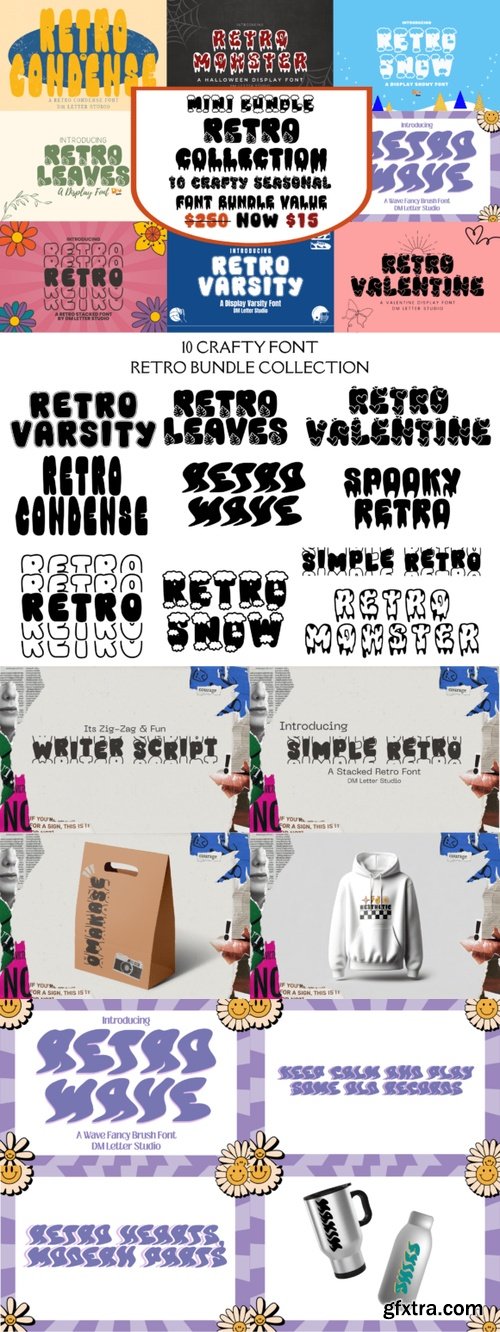
Retro Collection Font
- Explore the realm of artistry with the Mini Retro Font Collection – a meticulous compilation of 10 vibrant retro display fonts, each echoing a different season’s spirit or playfulness. Engaging in a Halloween commemoration, creating a love-filled Valentine’s Day card, conjuring up a winter canopy-themed poster or unleashing your passion with a summery design, this collection embraces all! Each font in the assortment radiates a distinct personality, encompassing everything from effervescent vintage scripts, eerie alphabets to athletic varsity styles. It’s the ideal pick for artisans, designers and lovers of retro charm and nostalgia, desiring to infuse a sense of yesteryears into their creations.